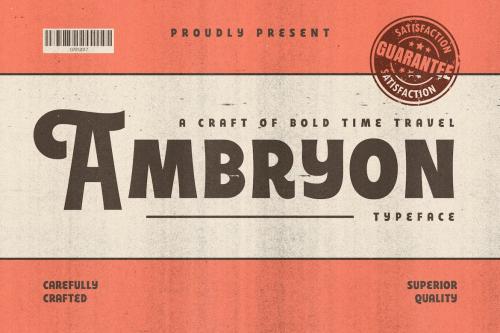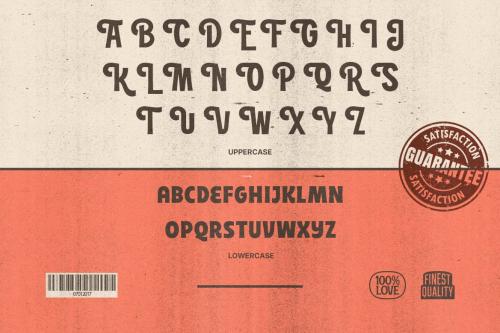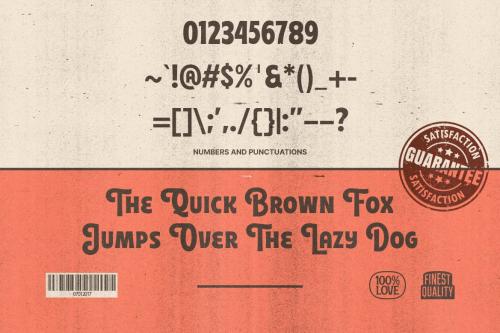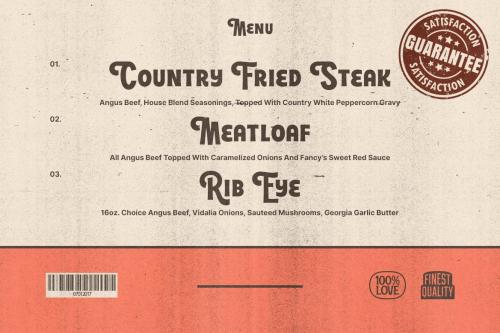
Ambryon - 勇气 vintage 字体
Ambryon - Bold Vintage Fonts
**Ambryon** is the epitome of timeless charm, meticulously crafted to transport you to a world of classic signage, packaging, and visual branding. With the touch of minimalism ornamental swash designed to evoke the enchanting essence of the past.
Ambryon transforms your text into a captivating narrative. It's more than just fonts; it's a journey through time. Get Ambryon today and give your brand a vintage makeover that stands out in the digital age.